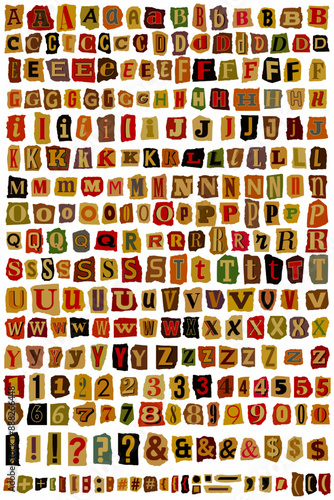
Old Vintage Ransom Letters Paper Collage Cut Out Vector Alphabet Blackmail Ransom Kidnapper Anonymous Note Font. Latin Letters, Numbers and punctuation marks. Criminal ransom letters. Compose your own